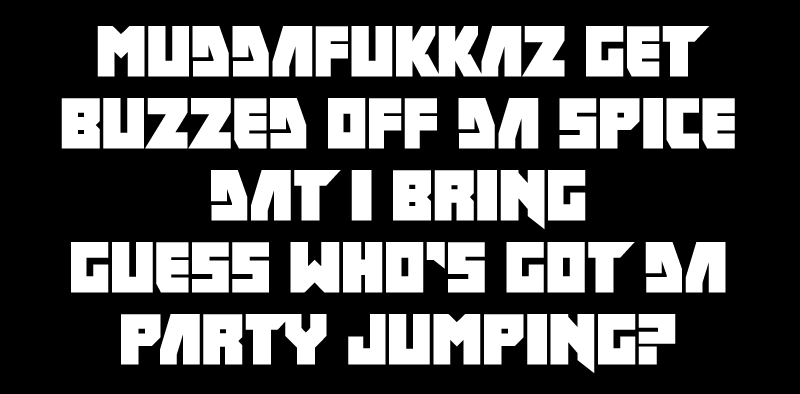
This font is inspired by lettering used by the band Die Antwoord. Punctuation, numbers, symbols, accented characters and Cyrillic letters were freely added. This font supports many languages and is free for any use. Send me pictures of your work! contact [at] fthafm [dot] com Facebook: http://www.facebook.com/fthafm | Website: http://www.fthafm.com/ |